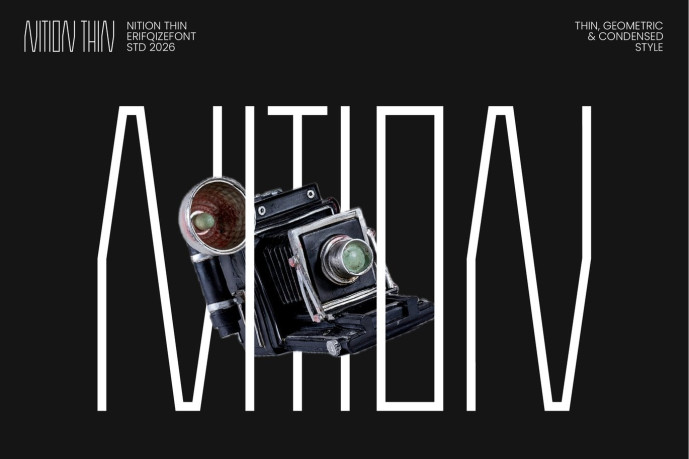
Nition Thin Font
NITION Thin is a modern condensed display typeface that emphasizes elegance, precision, and minimalism. Featuring tall proportions, clean geometric forms, and an ultra-light weight, NITION Thin creates a sleek and contemporary aesthetic perfect for refined visual compositions.
Its thin condensed structure delivers a sophisticated appearance while maximizing space efficiency, making it ideal for editorial headlines, fashion branding, modern posters, premium packaging, architecture presentations, technology visuals, and minimalist graphic design.
Whether used as a standalone display font or combined with heavier weights, NITION Thin adds a distinctive sense of style, balance, and modernity to every project.